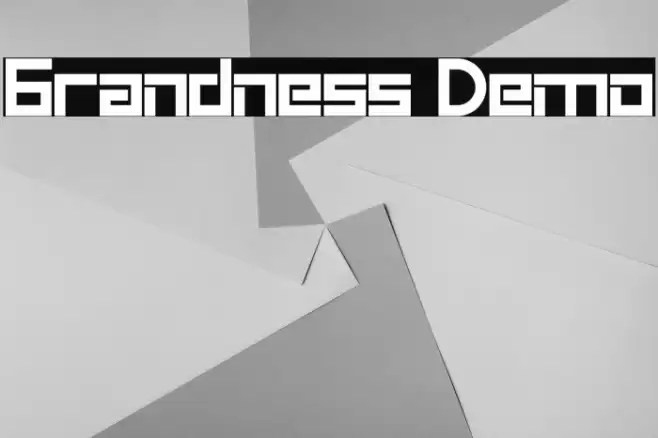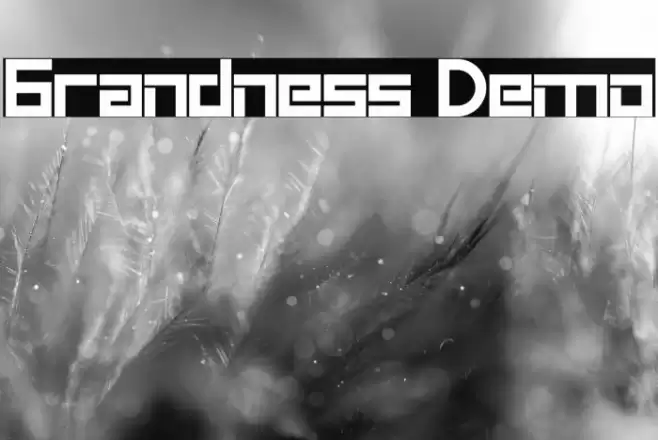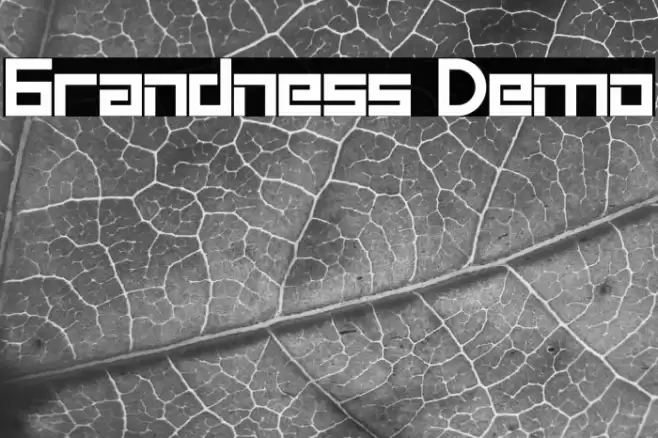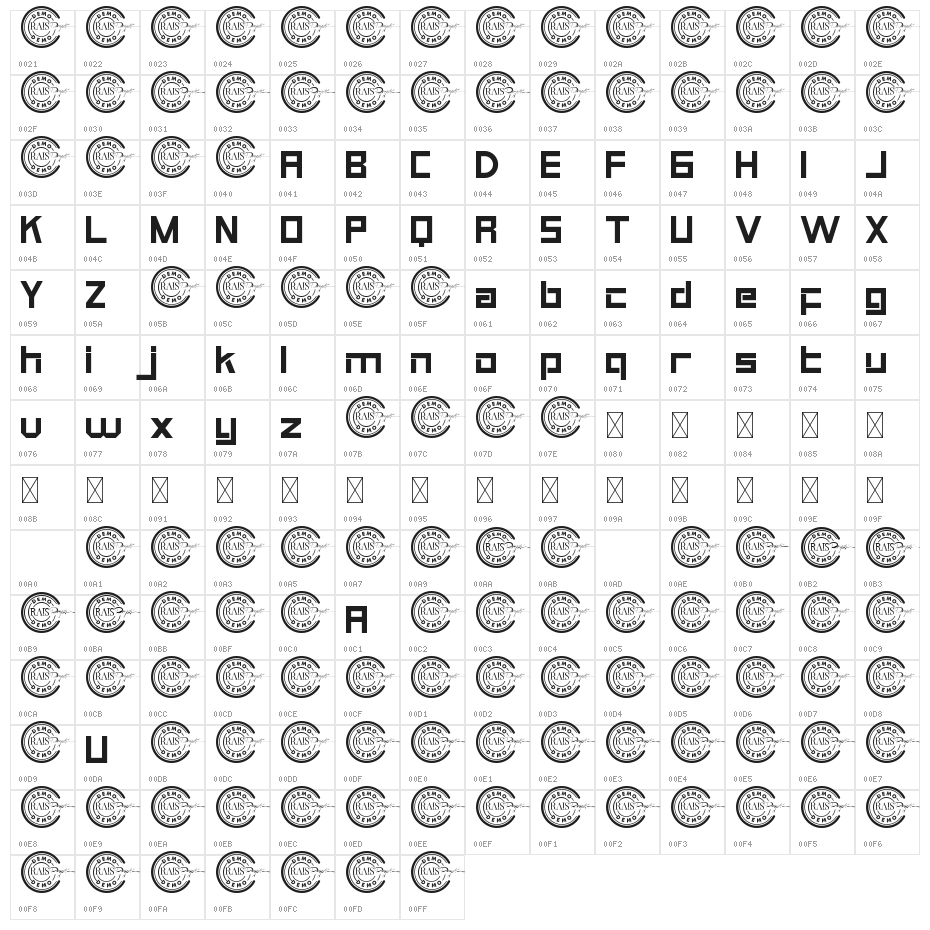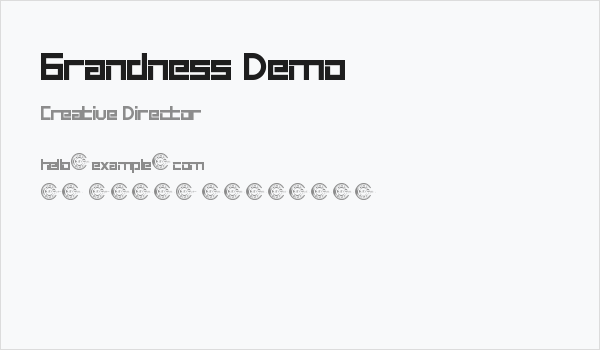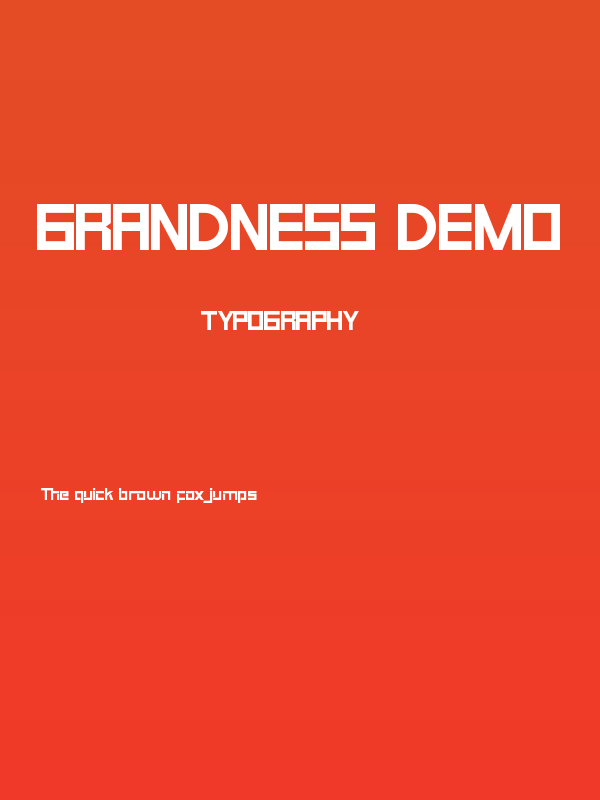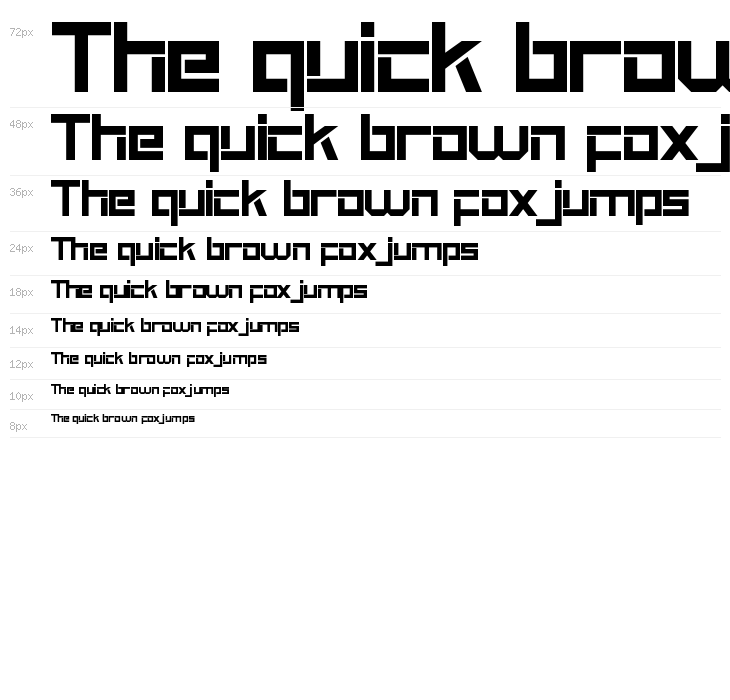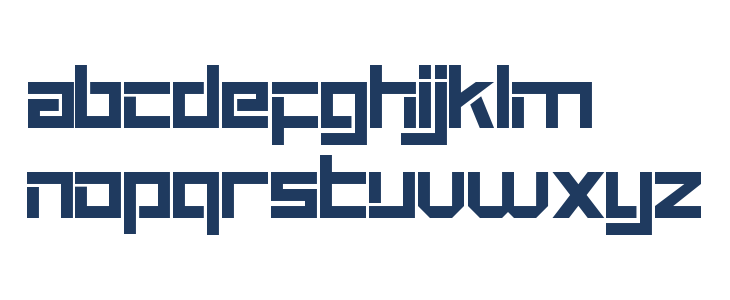
Grandness Demo Font
Grandness Demo Description
This font exhibits a bold and geometric style, characterized by its blocky and angular letterforms. The uppercase and lowercase letters maintain a consistent thickness, creating a uniform appearance. The design is modern and futuristic, with a strong emphasis on straight lines and sharp angles. The numerals and special characters follow the same geometric pattern, ensuring a cohesive look across all glyphs. The font's structure is robust, making it suitable for impactful and attention-grabbing designs.
A bold, geometric font with angular and blocky letterforms from Uncategorized fonts.
- Proposed Projects: Ideal for branding, posters, headlines, and any project requiring a modern and bold aesthetic.